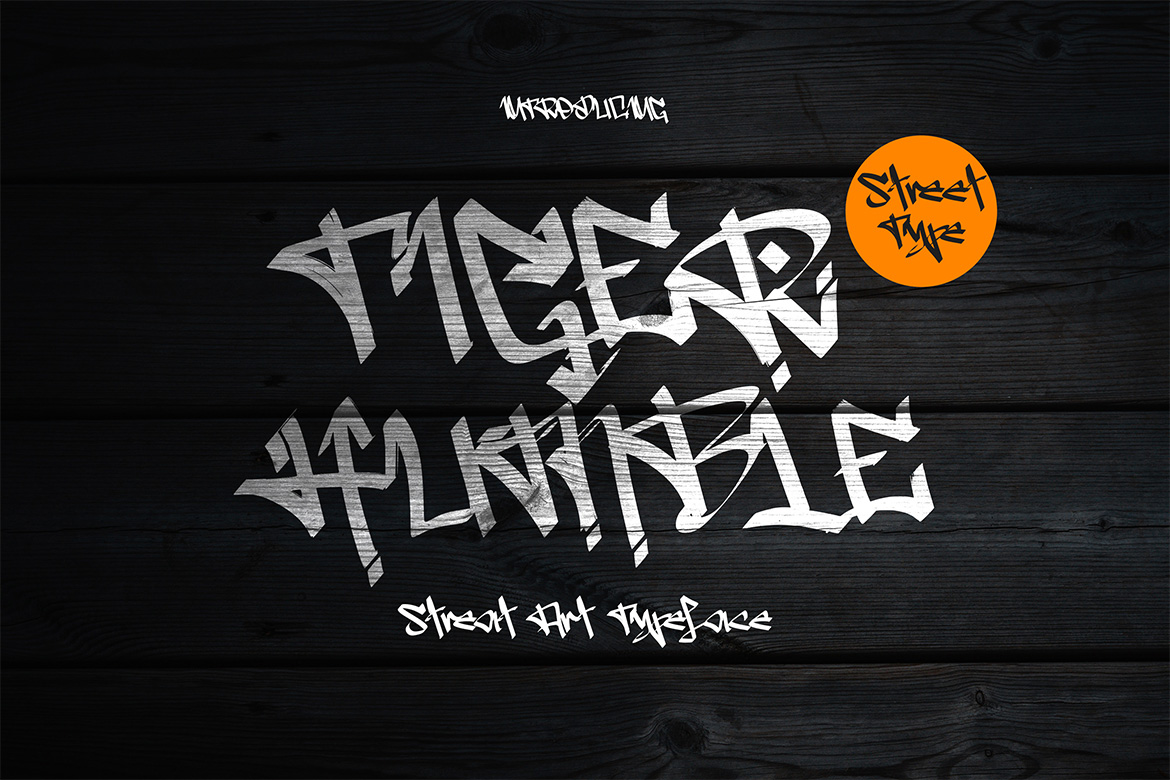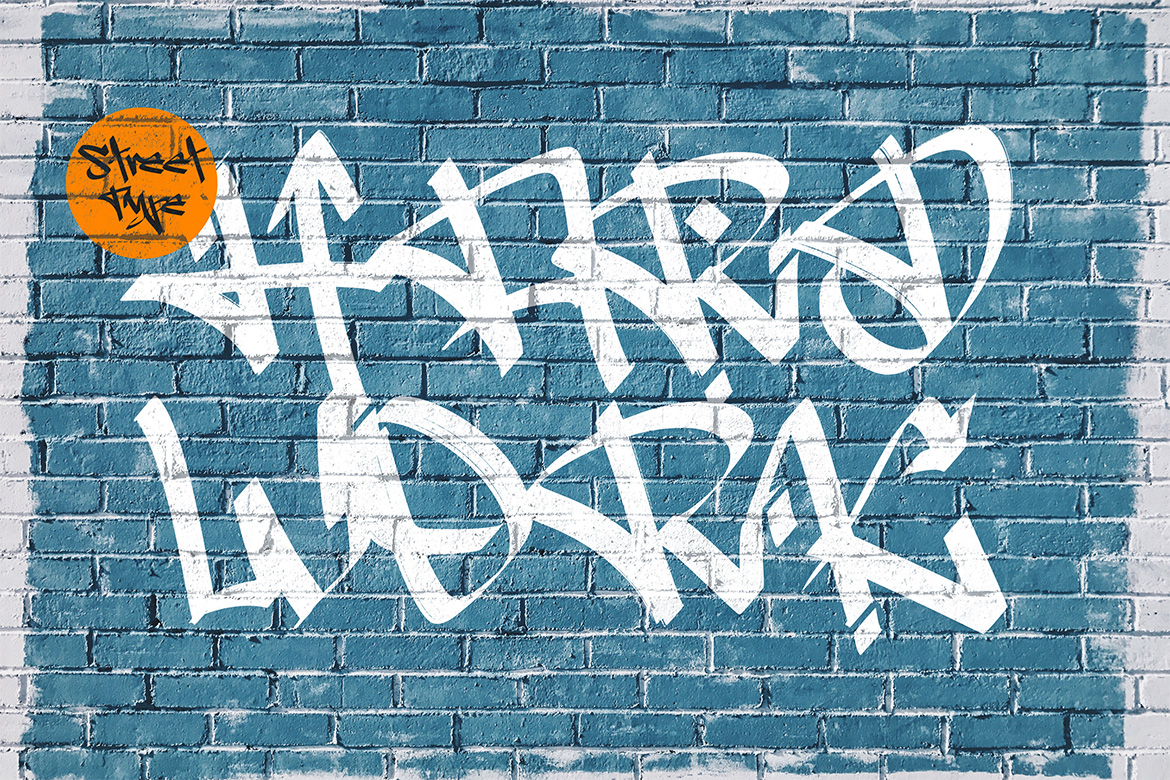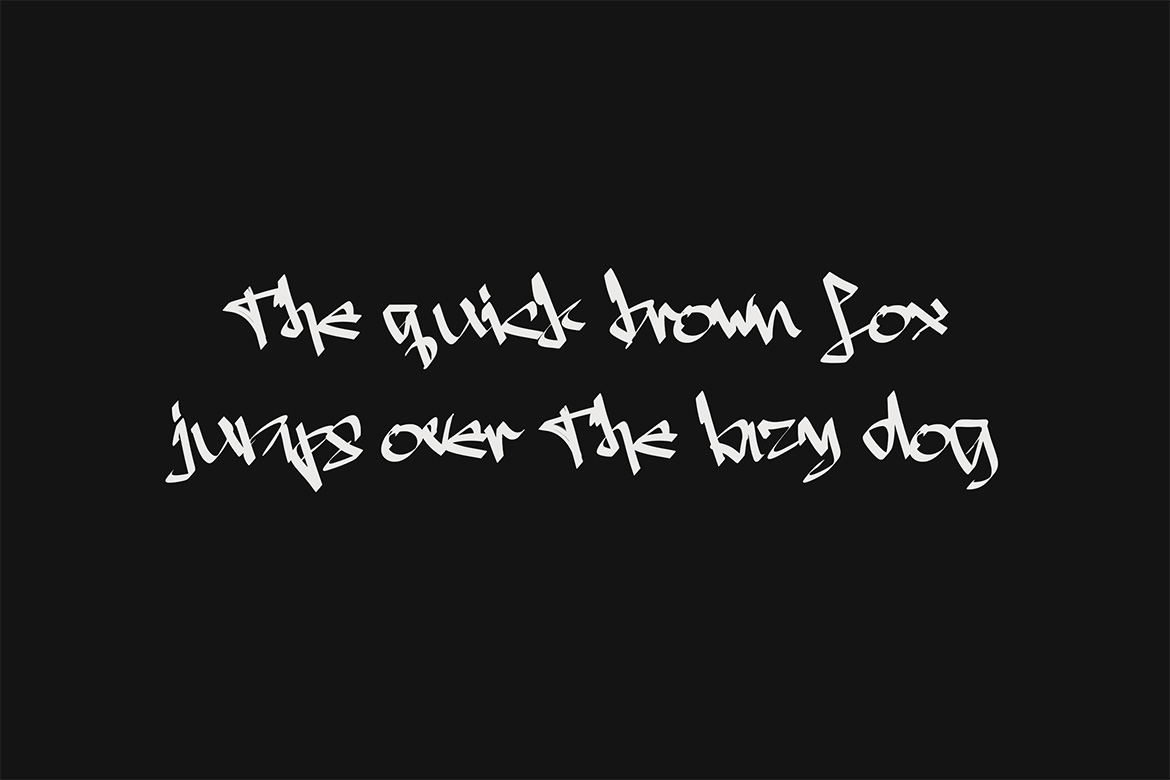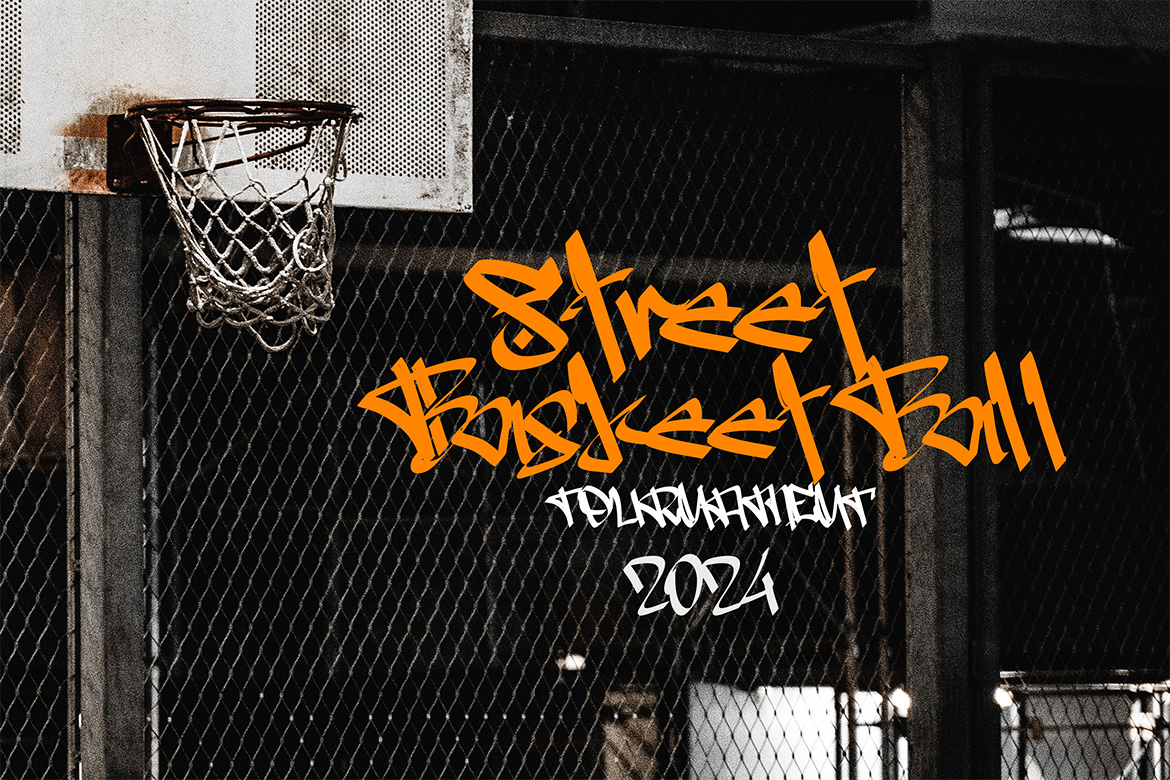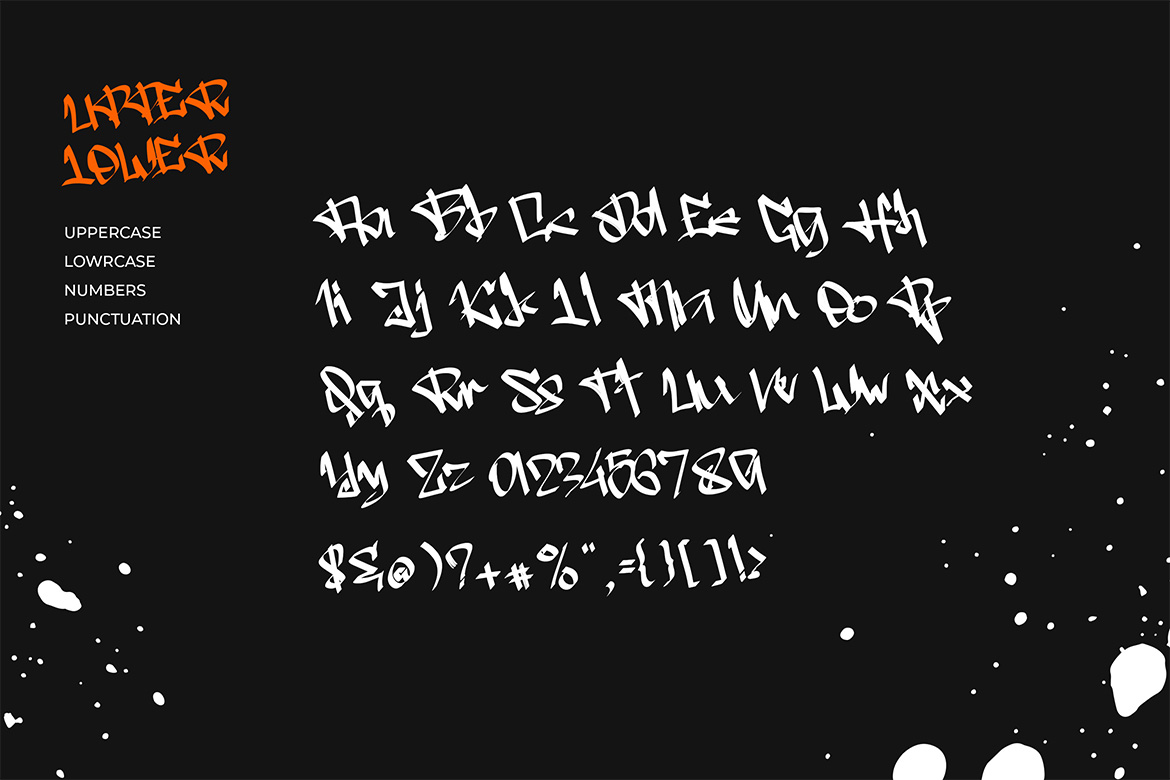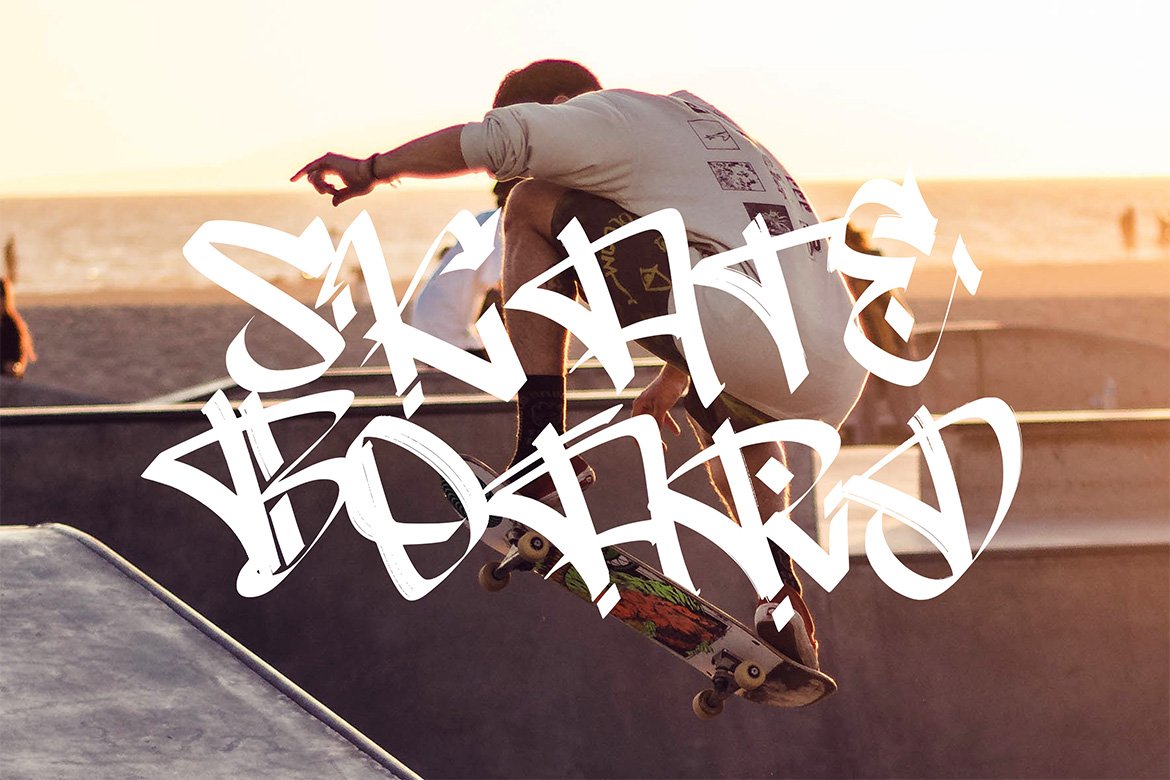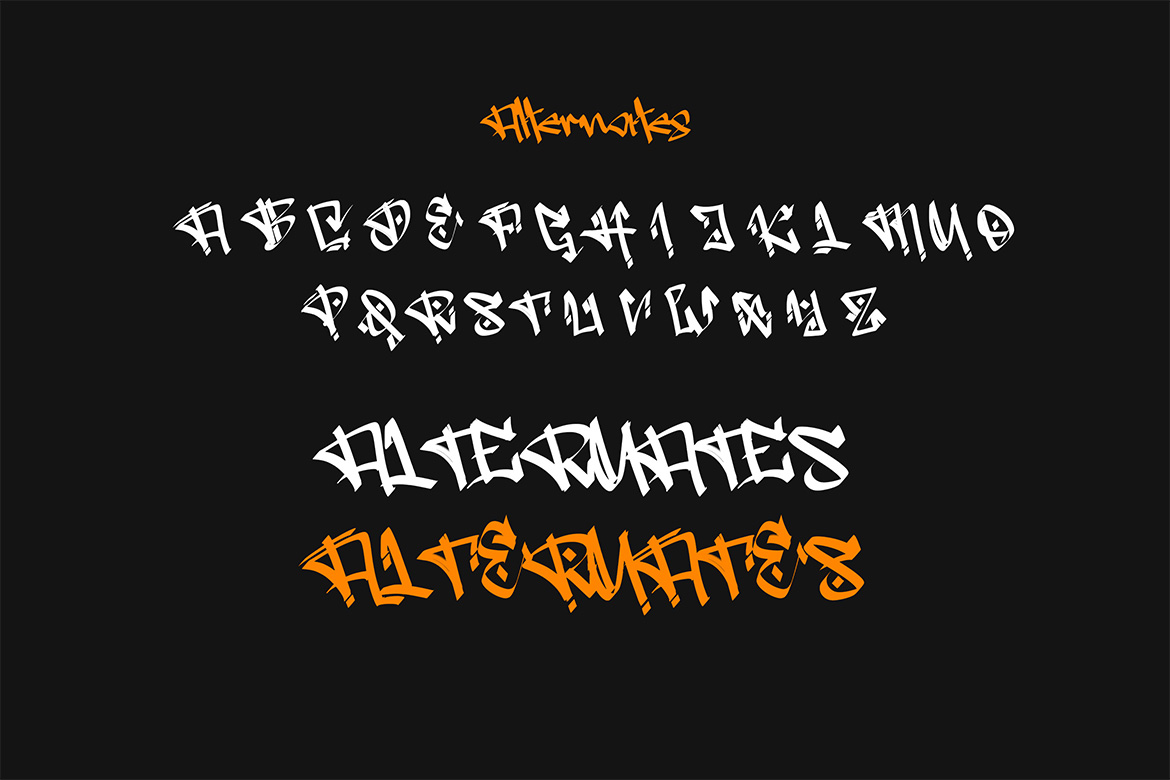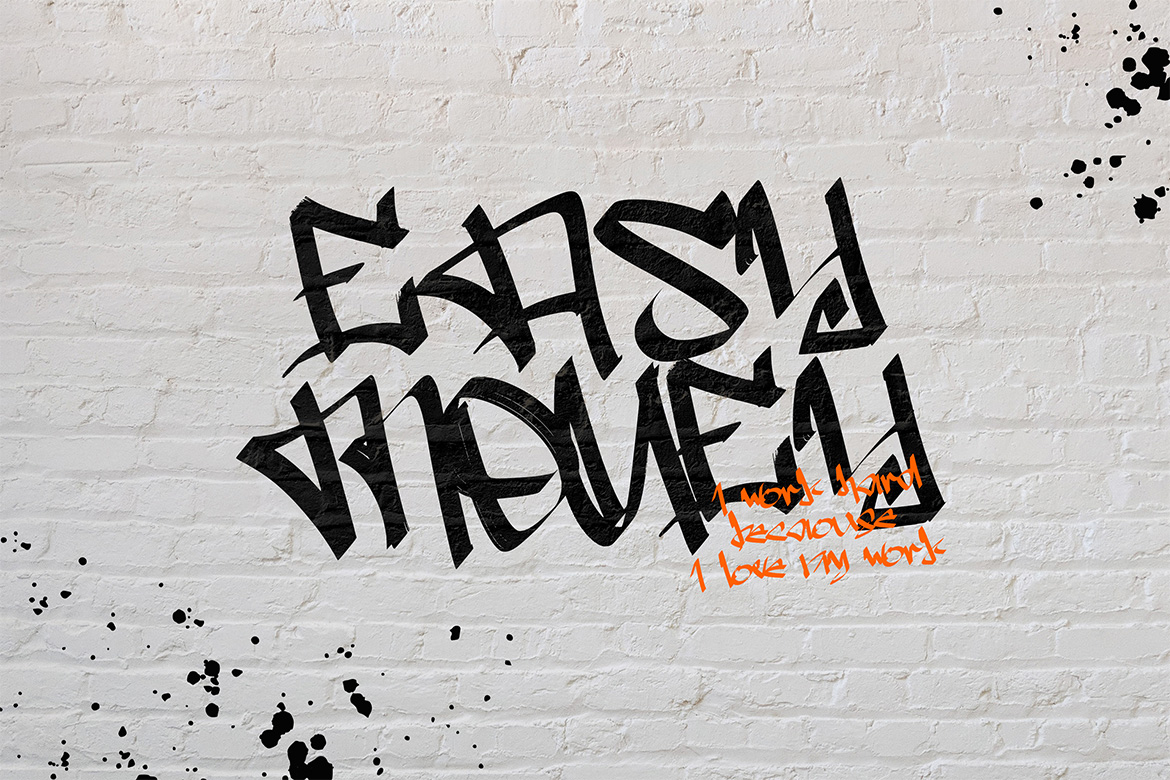
Tiger Humble
The font "Urban Graffiti Blast" features bold, aggressive letterforms characterized by sharp angles, irregular outlines, and a dynamic, hand-painted aesthetic reminiscent of street art and graffiti tags. Each character exhibits varying stroke widths and an energetic, raw texture, giving it a distressed yet powerful presence. The design conveys a sense of rebellion, urban culture, and high impact. It is ideal for impactful headlines, striking logos, poster designs, album art, and any branding requiring an edgy, contemporary, and street-inspired visual identity. Its strong visual presence makes it suitable for merchandise and promotional materials that aim to capture an urban, youthful audience. In Package : OTF TTF WOFF WOFF2 Feature : Uppercase Lowercase Alternates Numerals Punctuation Easy To Install